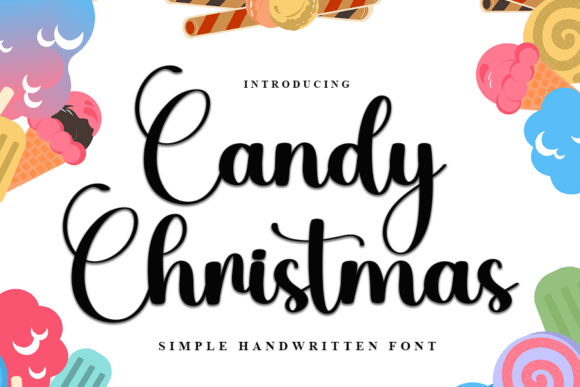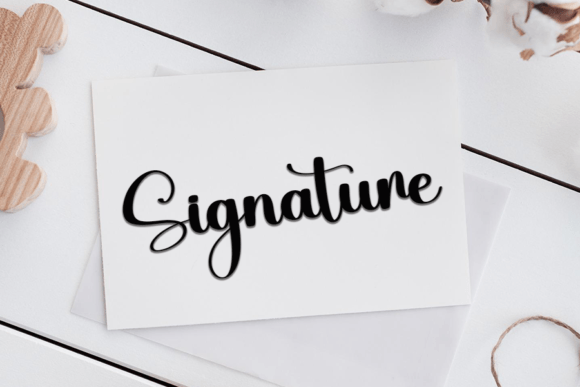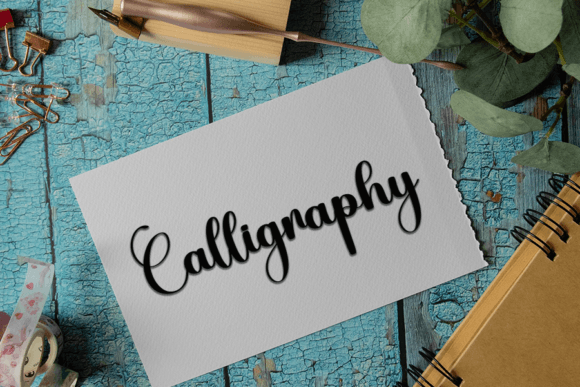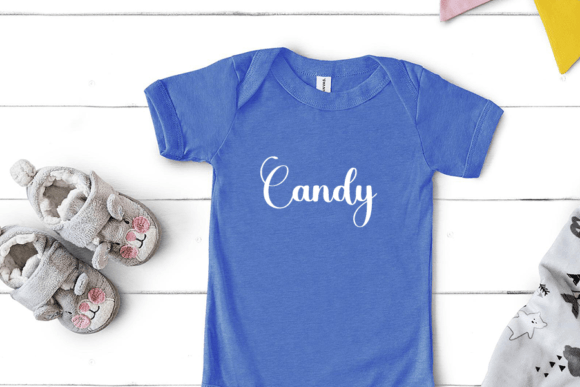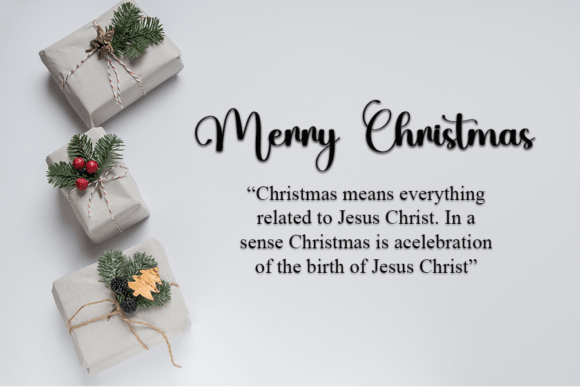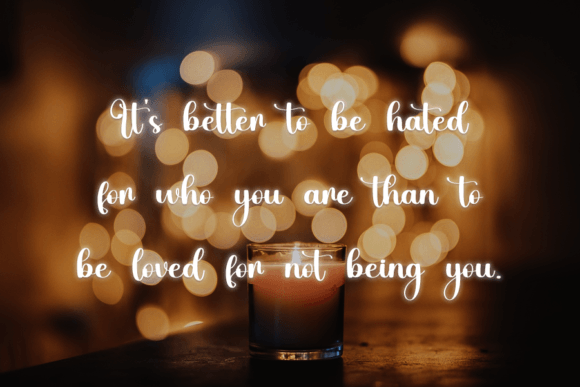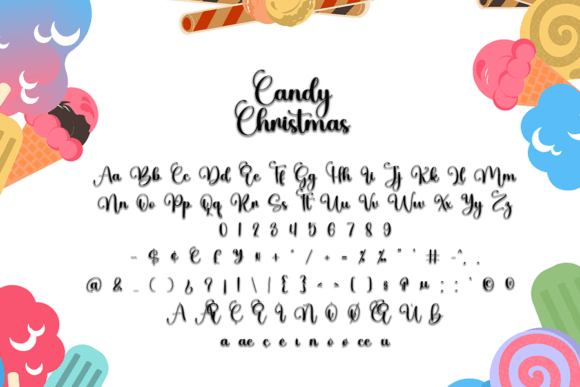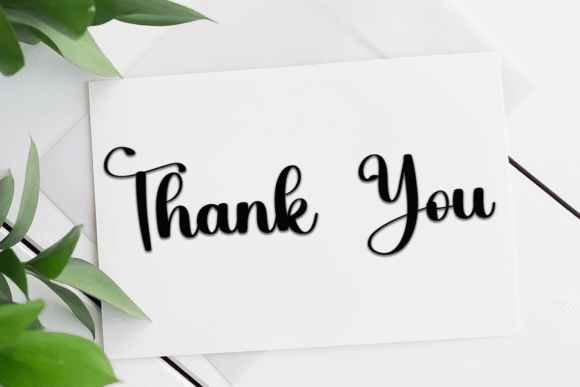
Candy Christmas Font
About Candy Christmas Font
Candy Christmas Font is a delicate handwritten script crafted with elegance and creativity. With smooth strokes and unique curves, this typeface is designed to bring personality and charm to a wide variety of projects. Because of its refined style, Candy Christmas Font is suitable for invitations, food packaging, product labels, greeting cards, and digital creative work.
A Delicate Handwritten Typeface with Elegance
Handwritten fonts bring authenticity and warmth to designs, and Candy Christmas Font takes this further with its stylish and graceful details. Its lines are clean yet expressive, ensuring readability while adding flair. Moreover, it adapts seamlessly to both personal and professional uses. As a result, this font is an excellent choice for designers who want elegance combined with creativity.
Perfect Typeface for Invitations and Letters
If you enjoy working on personal projects, Candy ChristmasFont is a wonderful tool. For example, it can transform a simple holiday letter into something more memorable. In addition, it works beautifully for wedding invitations, thank-you notes, and seasonal greeting cards. Because of its delicate strokes, every word feels heartfelt and full of character.
A Script Typeface for Food Packaging and Branding
Brands looking to add charm and creativity to their identity can rely on Candy Christmas Font. It works especially well for food labels, restaurant branding, and product packaging. Furthermore, on social media, it brings a playful handwritten touch to posts, banners, and stories. When paired with minimalist typefaces, Candy ChristmasFont creates balance between originality and professionalism.
Another strength of Candy ChristmasFont is its versatility. In print, it shines on posters, brochures, merchandise, and book titles. Digitally, it enhances blogs, websites, and presentations with an authentic handwritten appeal. Since it scales gracefully, this typeface maintains clarity whether used for small captions or large titles.